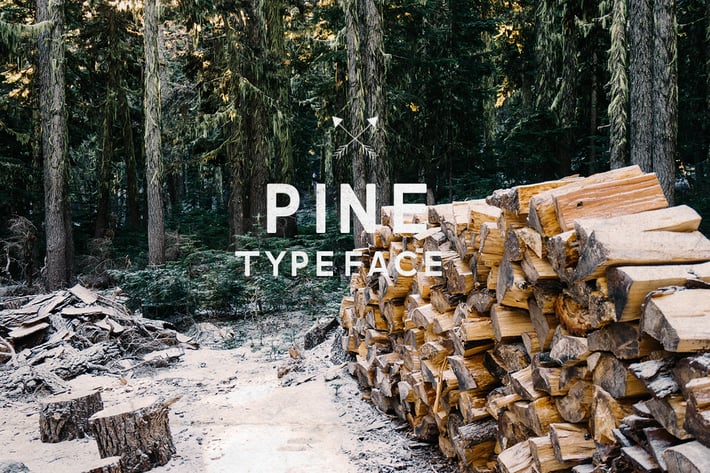
Pine Font
Pine itβs simple and good font for brandings, posters, arts, also for vintage logos or something like that. Available in OTF, can used everywhere.
Include all letters (upper and lower case), numbers, and 40 glyphs.